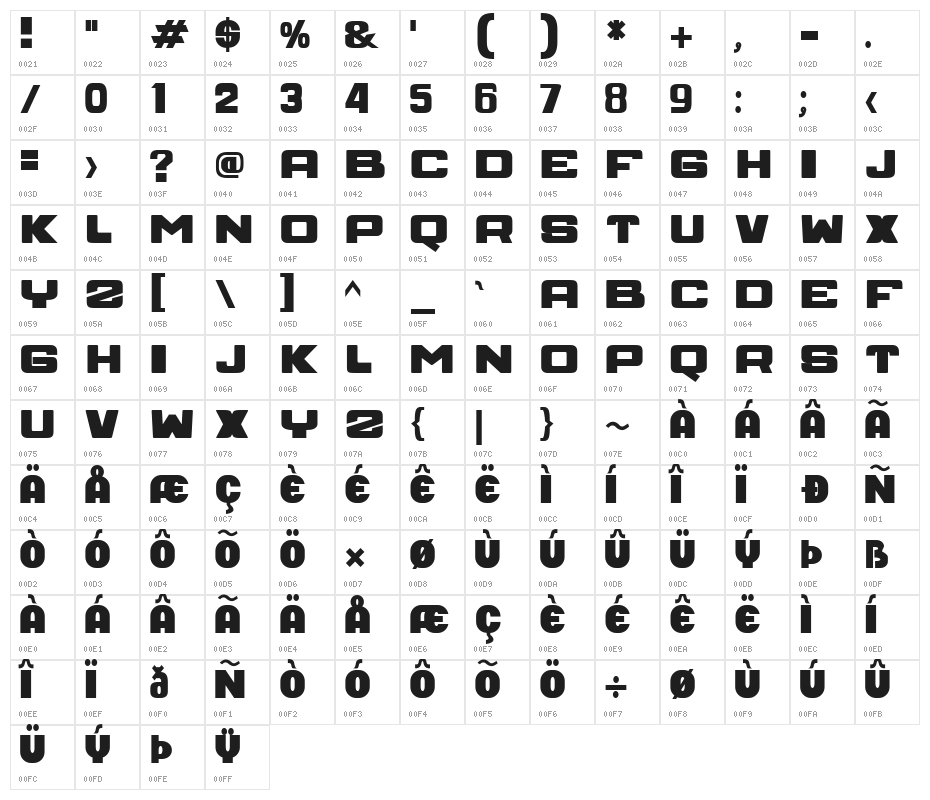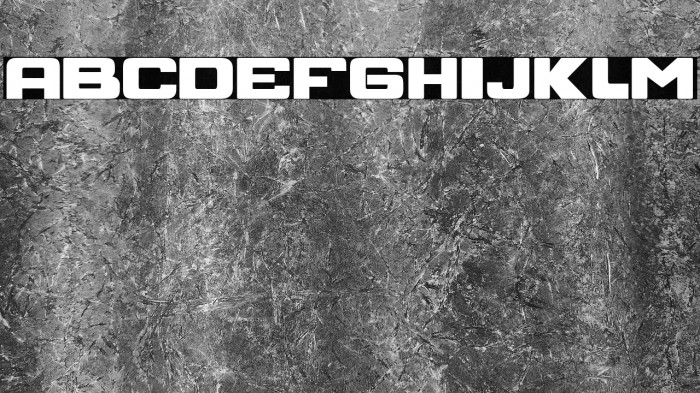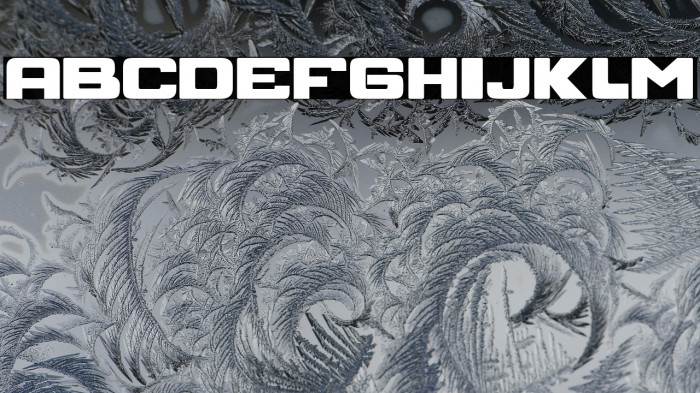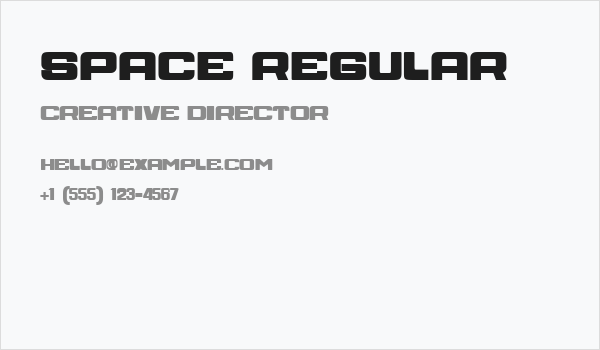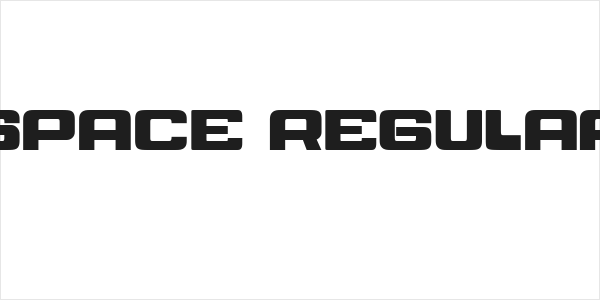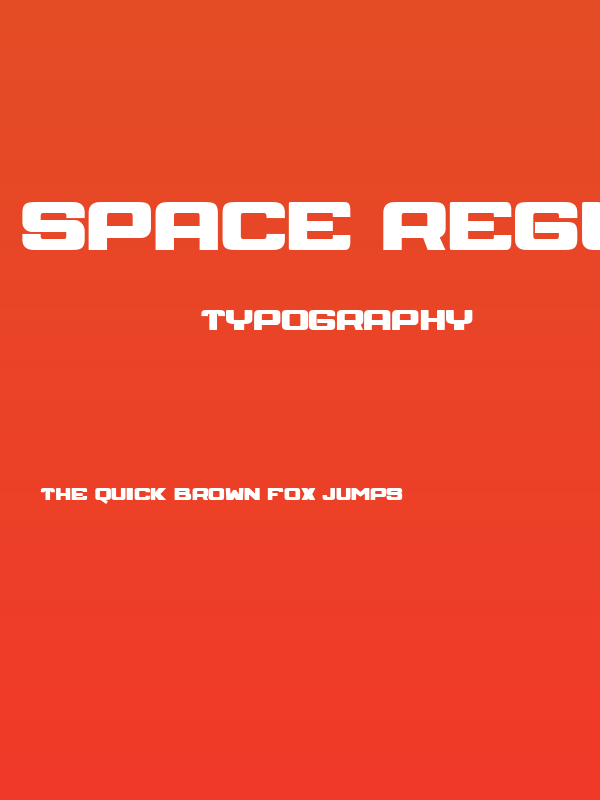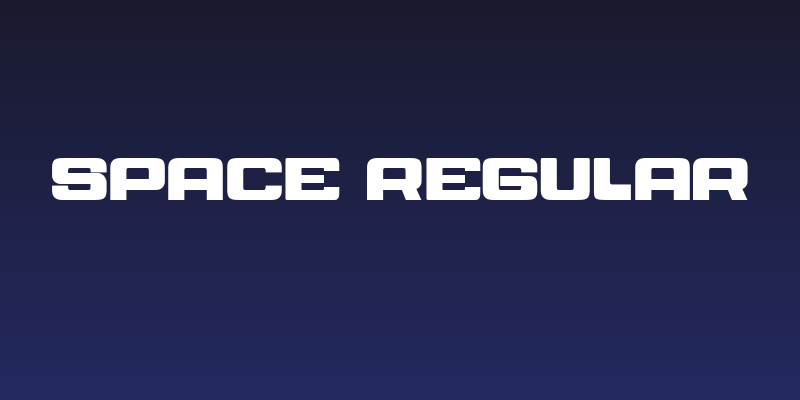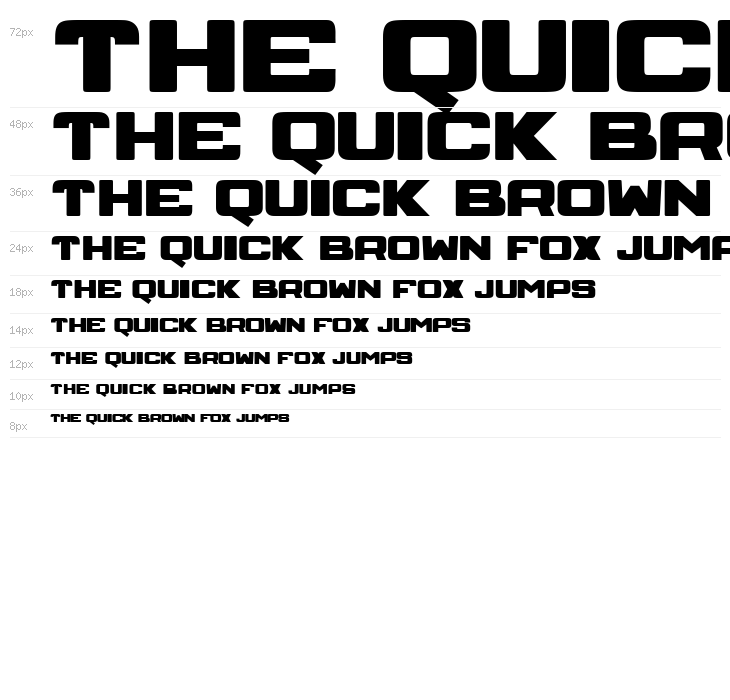
SPACE Regular Font
SPACE Regular Description
This font features a bold, geometric design with strong, angular lines and a futuristic aesthetic. The uppercase letters are uniform in height, with a consistent width that gives a sense of stability and strength. The numerals are equally bold, maintaining the geometric style with rounded edges that contrast the sharpness of the letters. Special characters are designed to match the overall boldness and geometric nature, making them stand out. The font's design is reminiscent of sci-fi themes, making it ideal for projects that require a modern and dynamic look.
Overall StyleFuturistic
Proposed ProjectsIdeal for sci-fi themed projects, technology branding, video game titles, and futuristic posters.